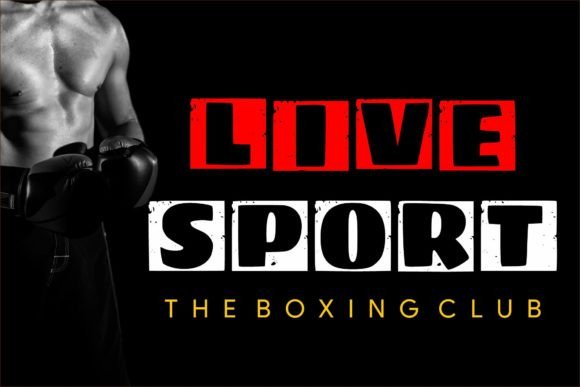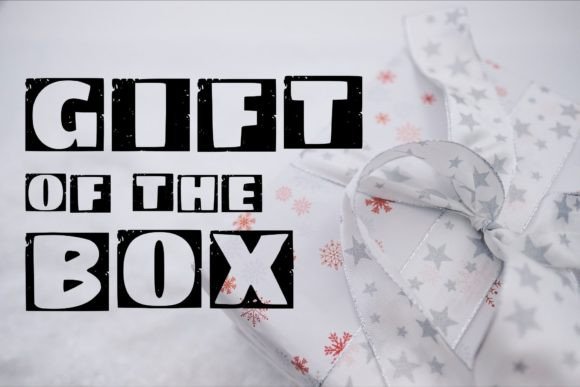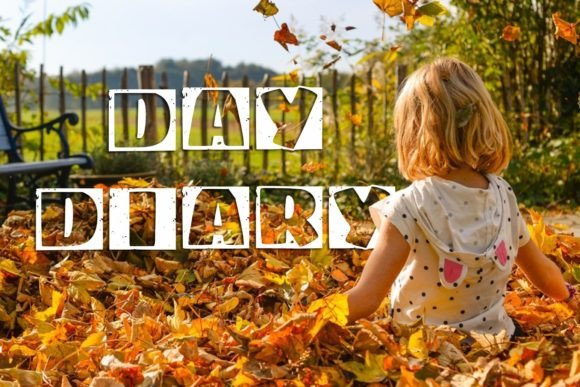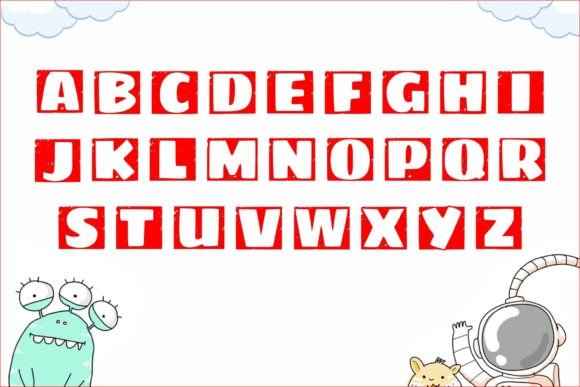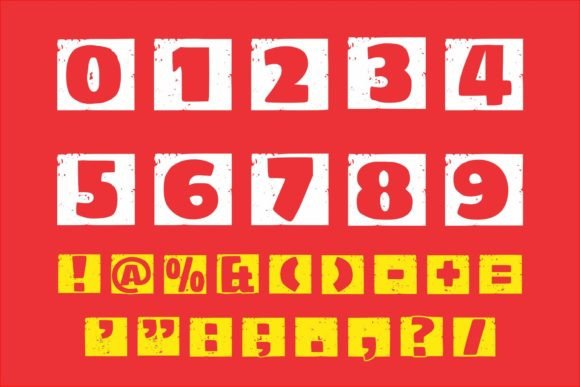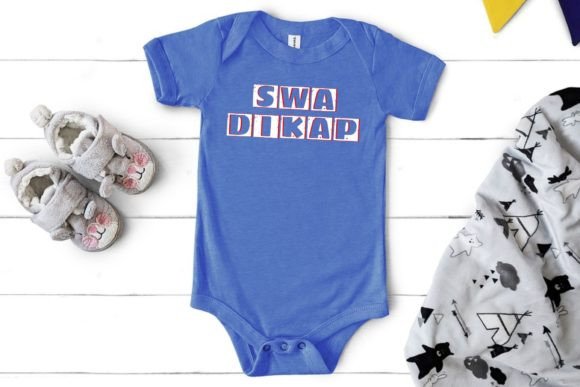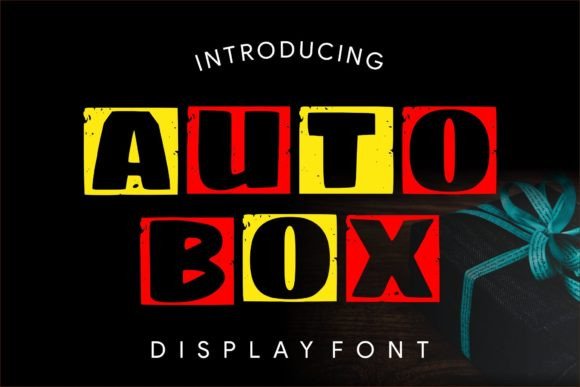
Introducing Auto Box Font: Elevate Your Designs with a Spectacular Display Font
Are you tired of using the same old fonts in your designs? Look no further! Auto Box Font is here to revolutionize the way you create. This stunning display font is incredibly versatile, making it perfect for a wide range of designs. From bold and modern to elegant and sophisticated, Auto Box Font can elevate your creative ideas to new heights.
What Makes Auto Box Font So Special?
Auto Box Font is a game-changer for designers and crafters alike. Its unique and attractive design makes it stand out from the crowd, adding a touch of personality to any project. Whether you’re working on a logo, branding materials, or marketing collateral, this font is sure to make a lasting impression.
One of the best things about Auto Box Font is its versatility. It can be used in a variety of contexts, from digital designs to print materials. The font’s clean lines and modern aesthetic make it perfect for:
- Social media graphics and ads
Here are a few tips for getting the most out of Auto Box Font:
- Experiment with different font sizes and styles to create visual interest
- Pair Auto Box Font with complementary fonts to create a unique look
- Use the font to create bold and eye-catching headlines
- Take advantage of the font’s versatility by using it in different contexts
The Benefits of Using Auto Box Font
So why should you choose Auto Box Font for your designs? Here are just a few benefits:
- Instant recognition: Auto Box Font is designed to grab attention and make a lasting impression
- Versatility: The font can be used in a wide range of contexts and designs
- Unique style: Auto Box Font adds a touch of personality to any design
If you’re looking for a font that can elevate your designs to new heights, look no further than Auto Box Font. This spectacular and attractive display font is incredibly versatile, making it perfect for a wide range of designs. With its unique style and ease of use, Auto Box Font is a must-have for any designer or crafter looking to add a touch of personality to their work.